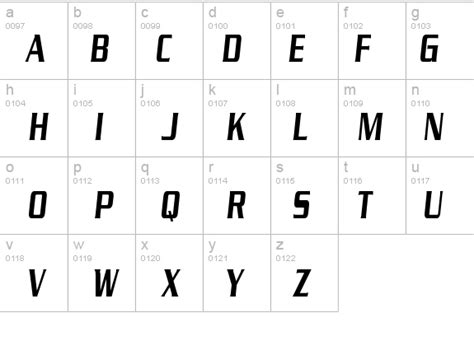
Adidas Football Font: A Deep Dive
What’s up, football fanatics! Ever scrolled through an amazing Adidas football jersey and wondered, “Whoa, what’s that cool font they use?” Well, you’ve landed in the right spot, guys. We’re about to take a deep dive into the world of the Adidas football font , exploring its history, evolution, and what makes it so iconic. It’s not just any old typeface; it’s a statement, a piece of brand identity that screams performance, style, and that unmistakable Adidas swagger. Whether you’re a jersey collector, a graphic designer, or just a massive football fan, understanding this font is like knowing the secret handshake of the soccer world. So, buckle up as we unravel the design DNA behind those legendary kits. We’ll cover everything from its early days to the modern iterations you see on pitches today. Get ready to have your minds blown by the simple yet powerful impact of typography in the beautiful game!
The Genesis of the Adidas Football Font
Let’s rewind the clock, shall we? The Adidas football font didn’t just appear out of thin air. Like all great designs, it has roots, a story of evolution. Back in the day, sports apparel branding wasn’t as sleek and standardized as it is now. However, Adidas, being the trendsetter it always was, started developing its own distinct visual language. Early iterations of their football kits featured various styles, but a recognizable Adidas aesthetic began to solidify. Think about those classic 70s and 80s kits – the numbers and names had a certain weight and structure that felt athletic and bold. This era laid the groundwork for what would become the signature Adidas football font . It was about clarity, readability, and a sense of industrial strength that mirrored the performance they aimed to deliver. The fonts were often blocky, sans-serif, and designed to stand out on the pitch, even from a distance. Imagine the roar of the crowd, the fast-paced action – the font needed to be instantly recognizable. It wasn’t just about aesthetics; it was about functionality. The simplicity meant it could be easily applied to different materials and manufacturing processes of the time. This early focus on both form and function is key to understanding the enduring appeal of the Adidas football font . It was built to last, visually and physically, just like the athletes wearing the gear. We’re talking about a time when logos and typefaces were becoming crucial identifiers for sports brands, and Adidas was definitely at the forefront of this movement. They understood that the details mattered, and the font on the back of a player’s jersey was as important as the three stripes themselves. It became a symbol of heritage and quality, instantly connecting fans to their favorite teams and players through a shared visual language. It’s a testament to good design that these early influences still echo in the fonts we see today, proving that timeless design principles never really go out of style.
Evolution and Iconic Designs
As the decades rolled on, so did the Adidas football font. It wasn’t a static entity; it evolved, adapting to new design trends and technological advancements in printing and application. We saw periods where the font became sharper, more futuristic, and then periods where it embraced a more classic, athletic feel. The evolution of the Adidas football font is a fascinating journey through sports graphic design . Remember the 90s? Everything got a bit more edgy, and the fonts reflected that. Then came the 2000s, bringing cleaner lines and a more minimalist approach. What’s really cool is how Adidas managed to maintain a recognizable core identity while still innovating. They often introduced custom fonts for specific tournaments or clubs, adding a unique flair while staying true to the brand’s DNA. Think about the kits for major tournaments like the World Cup or the Euros – the accompanying font designs were often spectacular, capturing the excitement and prestige of the event. These custom designs showcase the versatility and adaptability of the Adidas football font philosophy . They weren’t afraid to experiment, pushing the boundaries of what a sports font could be. We’re talking about fonts that could convey speed, power, and elegance all at once. The introduction of new materials and application techniques also played a role, allowing for more intricate and dynamic font styles. Yet, through all these changes, there was always an underlying sense of athletic purpose and brand cohesion. It’s this ability to reinvent itself while staying true to its core values that makes the Adidas football font so enduringly popular. Fans collect these jerseys not just for the club or player, but for the entire aesthetic package, and the font is a huge part of that. It’s like looking at a piece of art that also tells a story of athletic achievement and cultural significance. The way the numbers and names are rendered has a direct impact on the overall visual appeal of a jersey, and Adidas has consistently delivered designs that are both striking and functional, resonating with generations of football supporters worldwide. It’s a masterclass in branding, really, showing how a seemingly small detail can have such a massive impact.
What Makes the Adidas Football Font Special?
So, what’s the secret sauce, the magic ingredient that makes the Adidas football font stand out from the crowd? It’s a combination of factors, really. Firstly, boldness and clarity are paramount . On a fast-moving football pitch, or even just on your screen, the font needs to be instantly legible. Adidas consistently opts for designs that are strong, well-defined, and easy to read, whether it’s a player’s name or a crucial squad number. Think thick strokes, clear spacing, and a confident presence. Secondly, it embodies the spirit of sport . The fonts often have a dynamic quality, suggesting movement, power, and precision. You see this in the sharp angles, the subtle curves that imply speed, or the robust structure that conveys stability and strength. It’s a visual representation of athletic performance. Thirdly, brand consistency and adaptability . While there have been evolutions, there’s an underlying Adidas DNA that runs through all their football fonts. This ensures brand recognition across different eras and products. Yet, they also manage to adapt these fonts for specific kits, tournaments, or collaborations, making each application feel fresh and relevant. This blend of heritage and innovation is what makes the Adidas football font truly special . It’s not just about looking good; it’s about feeling the game. The fonts are designed to evoke emotion, connect fans with the action, and represent the cutting edge of athletic apparel. They are carefully crafted to complement the jersey design, working in harmony with the colours, patterns, and overall aesthetic. It’s this meticulous attention to detail that elevates the Adidas football font from a simple typographic element to an integral part of the football jersey’s identity and appeal. It’s a design language that speaks volumes about performance, passion, and the global culture of the sport itself. The visual impact is undeniable, creating a lasting impression on fans and players alike. It’s a testament to Adidas’s understanding of how design influences perception and experience in the world of sports.
Modern Iterations and Customization
Fast forward to today, and the Adidas football font landscape is more vibrant than ever. Adidas continues to push the envelope with modern iterations that are both stylish and functional. We’re seeing fonts that are sleeker, more geometric, and sometimes even incorporate unique graphical elements. The customization aspect is huge in modern football, and Adidas fonts are designed to accommodate this . Whether it’s a special edition jersey for a club’s anniversary or a unique font for a national team’s away kit, Adidas excels at creating tailored typographic solutions. They often collaborate with designers and even clubs themselves to craft fonts that perfectly capture the essence of a particular team or event. This bespoke approach ensures that each jersey tells a unique story. For example, a font might incorporate subtle design cues inspired by the city the club represents or a historical motif significant to its fanbase. These modern customizations show the ongoing relevance and adaptability of the Adidas football font . It’s not just about slapping a generic number on a shirt anymore; it’s about creating a holistic visual identity. The technology used today also allows for incredible precision and detail, leading to fonts that are incredibly crisp and visually striking. Think about the use of gradients, metallic finishes, or even textured effects that can be applied. Adidas leverages these advancements to create fonts that are not only readable but also visually dynamic and engaging. It’s this commitment to innovation, coupled with a deep understanding of football culture, that keeps the Adidas football font at the forefront of sports design. They understand that in the digital age, where images are shared instantly across the globe, the visual details matter more than ever. The font becomes a key element in the overall aesthetic, contributing significantly to the jersey’s desirability and the fan’s connection to it. It’s a brilliant strategy that ensures their kits remain iconic season after season, adapting to new trends while retaining that unmistakable Adidas essence that fans have come to know and love. The level of detail and thought that goes into these designs is truly impressive, reflecting a brand that deeply understands its audience and the sport it serves.
Where to Find and Use Adidas Football Fonts
Now, you might be wondering, “Where can I get my hands on these awesome fonts, or how can I use them?” That’s a great question, guys! When we talk about the official Adidas football font used on jerseys, it’s typically proprietary. Adidas designs these custom typefaces specifically for their sports apparel. This means you generally won’t find them available for direct download from typical font websites like you would with, say, Arial or Times New Roman. Access to the official Adidas football fonts is usually limited to Adidas and its licensed partners for use on their official merchandise . However, this doesn’t mean you’re out of luck if you’re inspired by their style! Many graphic designers and font foundries create fonts that are inspired by or similar to the Adidas football font aesthetic. These are often available for purchase or download (sometimes for free for personal use). A quick search for “football jersey font,” “sports block font,” or “Adidas-style font” on reputable font marketplaces or creative resource sites will yield many options. When choosing a similar font, look for characteristics like boldness, strong sans-serif structure, and a slightly condensed or athletic feel . You’ll want something that feels powerful and legible. If you’re a designer working on a project inspired by Adidas or football culture, using these similar fonts can help you capture that authentic vibe. Just be mindful of licensing – always ensure you have the right to use the font for your intended purpose, especially if it’s for commercial use. For fans wanting to customize their own unofficial jerseys or merchandise, these inspired fonts are a fantastic way to get that professional look. It’s all about capturing that spirit and energy that Adidas so effectively conveys through its typography. So, while the exact official fonts remain exclusive, the essence of the Adidas football font is definitely accessible, allowing fans and creatives alike to bring a piece of that iconic style into their own projects. It’s a great way to show your love for the game and for classic sports design.
The Enduring Legacy
In the grand tapestry of football culture, the Adidas football font holds a significant place. It’s more than just letters and numbers; it’s a symbol of athletic excellence, iconic design, and the shared passion of millions of fans worldwide. From the grainy footage of past legends to the crisp visuals of today’s superstars, these fonts have been a constant presence, defining the aesthetic of countless unforgettable moments. The enduring legacy of the Adidas football font is a testament to timeless design principles and powerful branding . It’s a story of evolution, innovation, and a deep understanding of what resonates with the football community. As Adidas continues to shape the future of sports apparel, we can be sure that their typographic approach will remain at the cutting edge, always embodying that unique blend of performance, style, and heritage. So, the next time you see a striking Adidas jersey, take a moment to appreciate the font. It’s a small detail that carries immense weight, a silent but powerful storyteller on the pitch. It’s part of the visual language of football, connecting generations of fans and players through a shared aesthetic that speaks of dedication, victory, and the beautiful game itself. It’s a legacy built on quality, performance, and an unwavering commitment to iconic design. Guys, it’s been a blast exploring this! Stay tuned for more deep dives into the world of football and design!